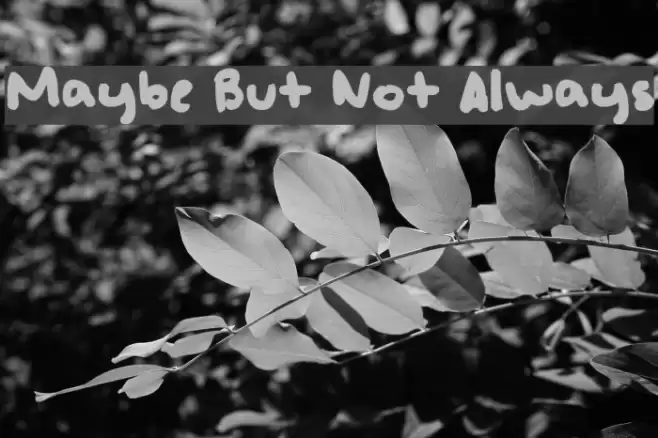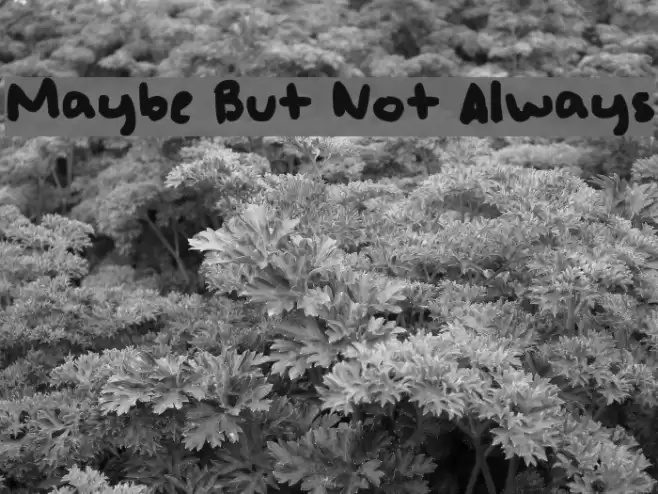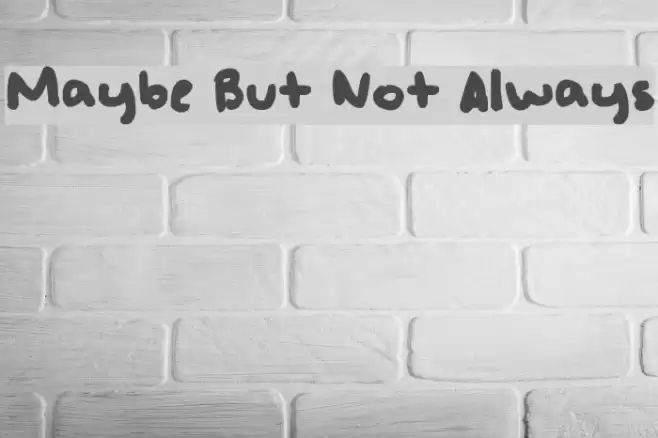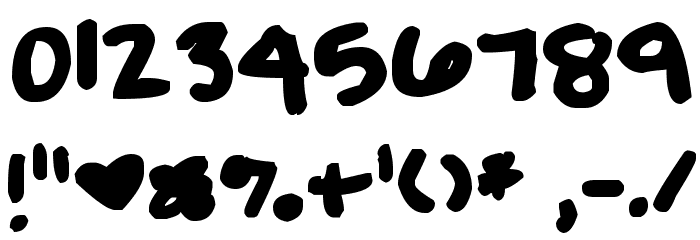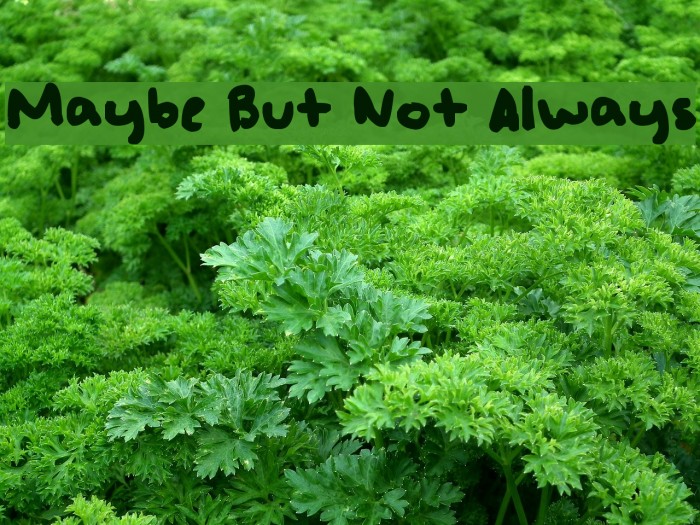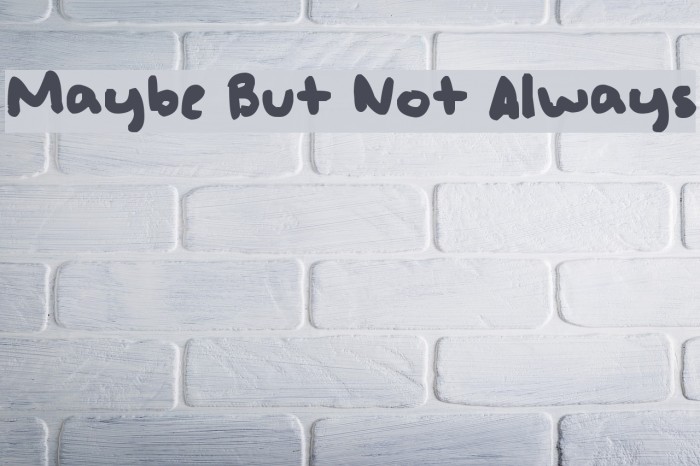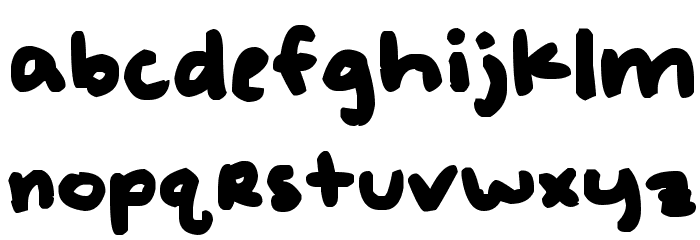
Maybe But Not Always Font
Maybe But Not Always Description
This font exudes a playful and casual vibe with its bold, handwritten style. The characters are rounded and slightly irregular, giving it a friendly and approachable feel. The strokes are thick and consistent, providing a strong visual impact. The uppercase and lowercase letters maintain a cohesive look, while the numerals and special characters add to its versatility. The overall design is informal, making it suitable for projects that require a personal touch or a fun, relaxed atmosphere.
A bold, playful handwritten font with a casual and friendly style from Handwritten fonts.
- Proposed Projects: Ideal for children's books, greeting cards, casual branding, and social media graphics.
- Overall Style: Casual
- Use Case: Headlines, Informal text, Creative projects